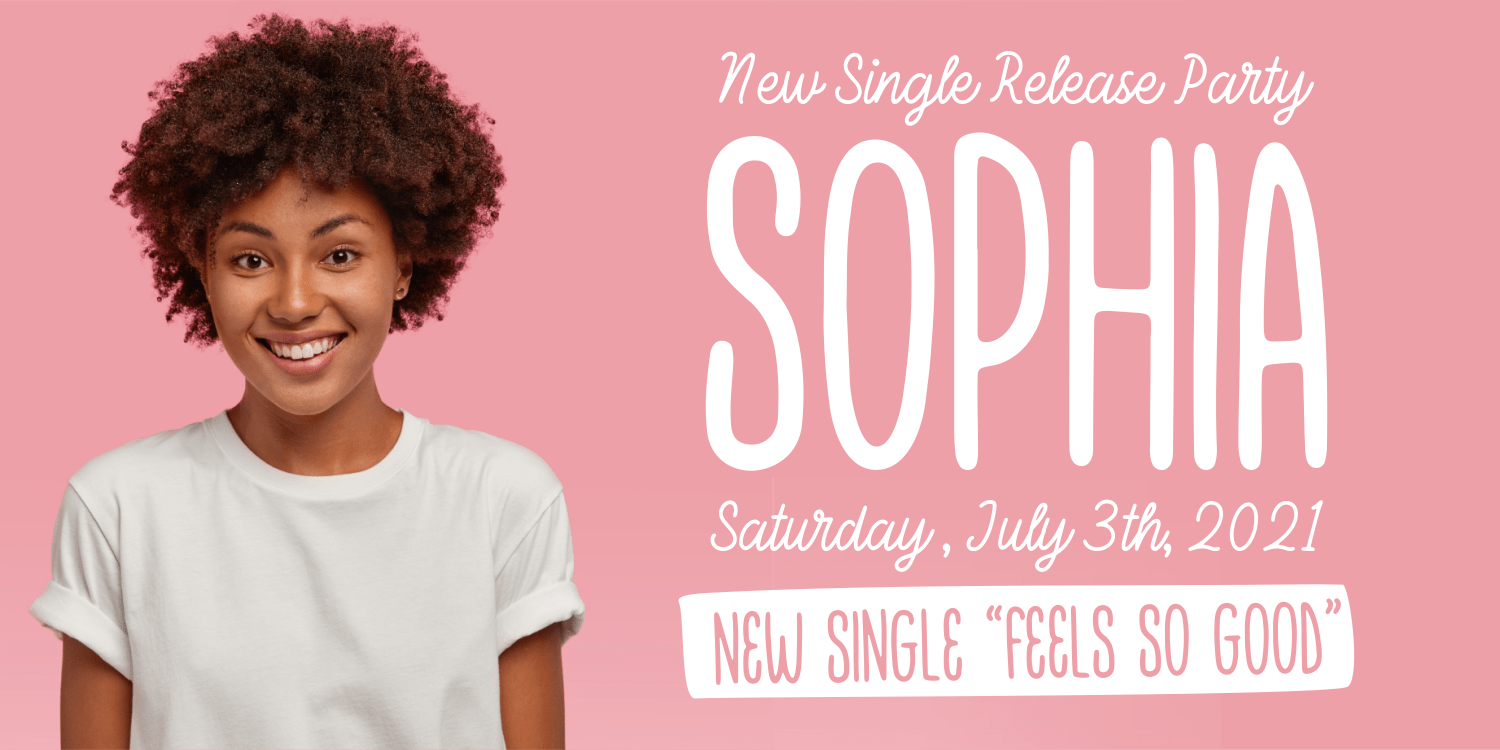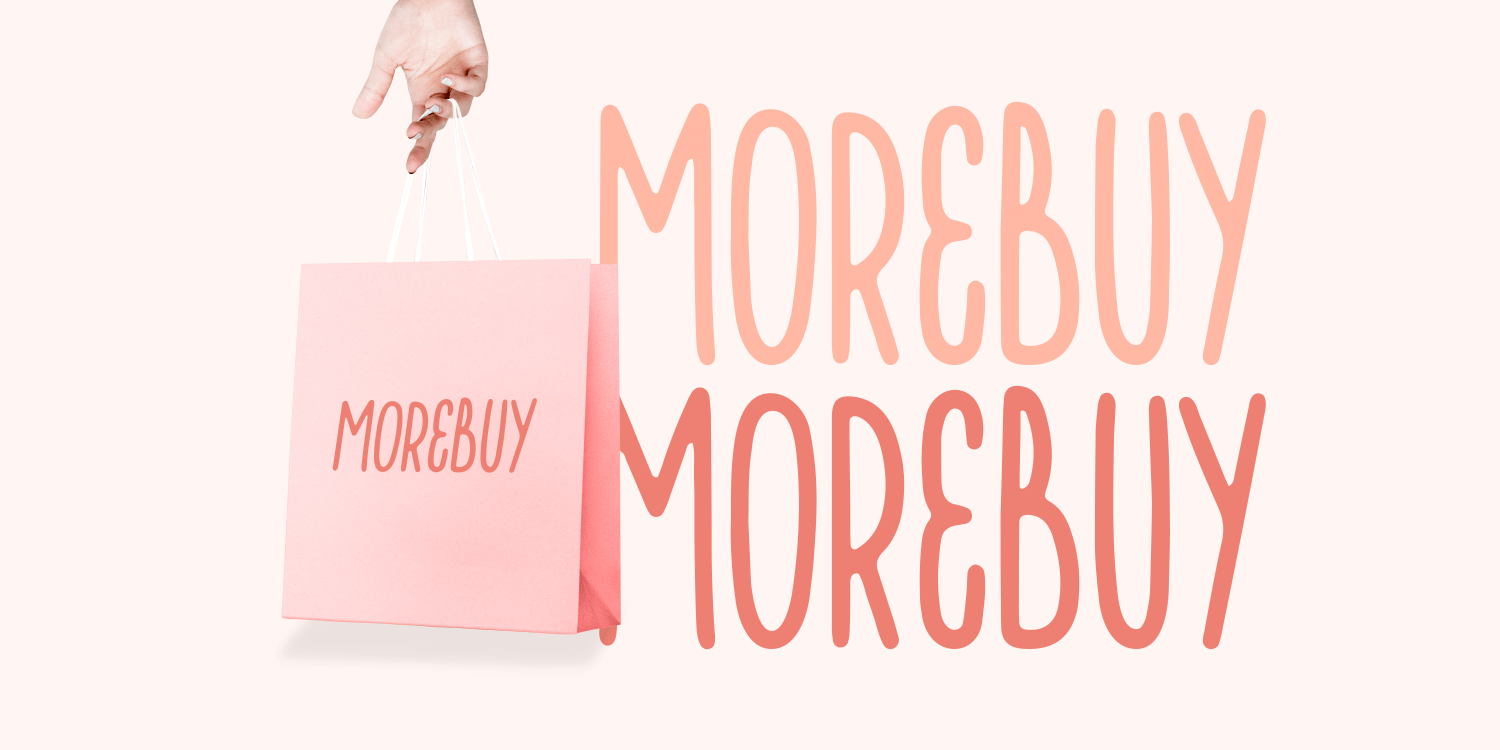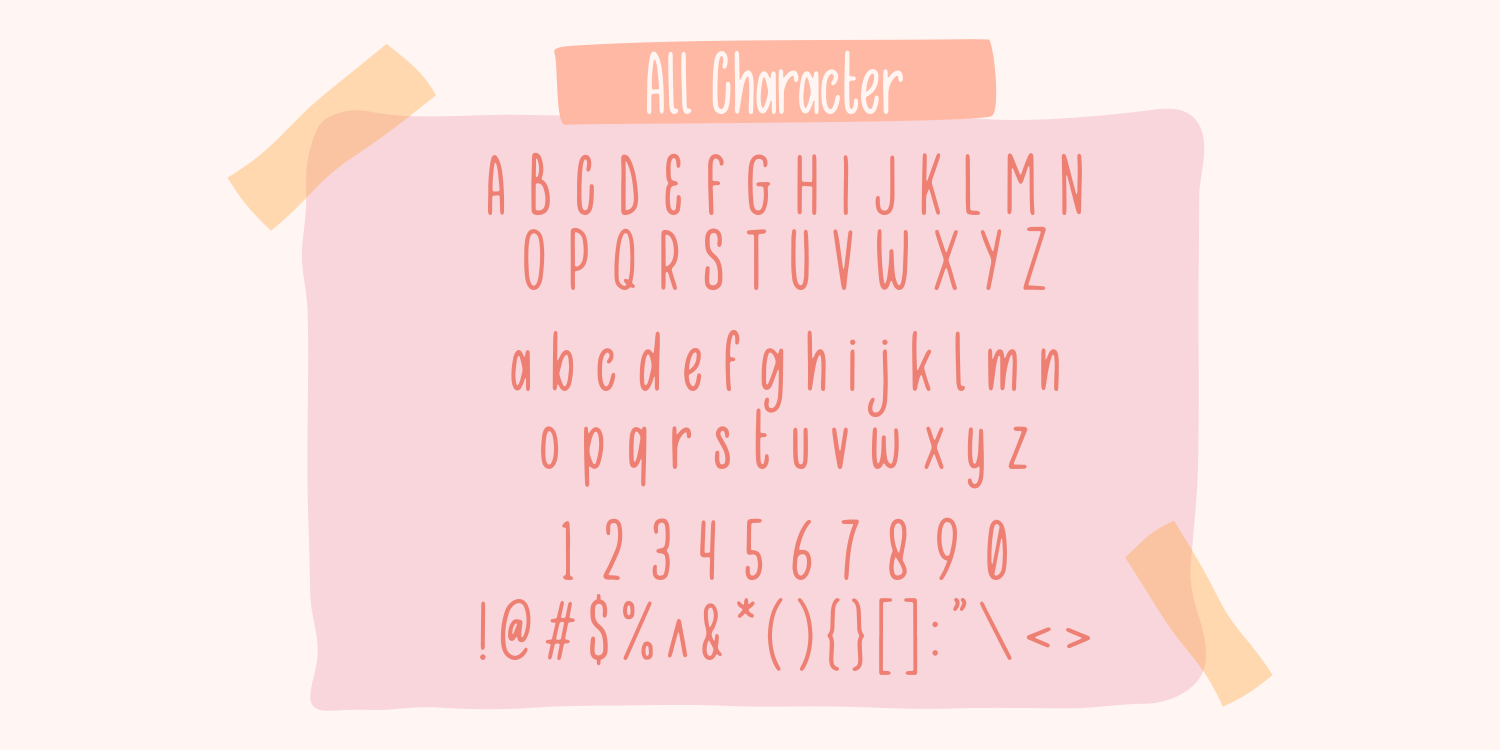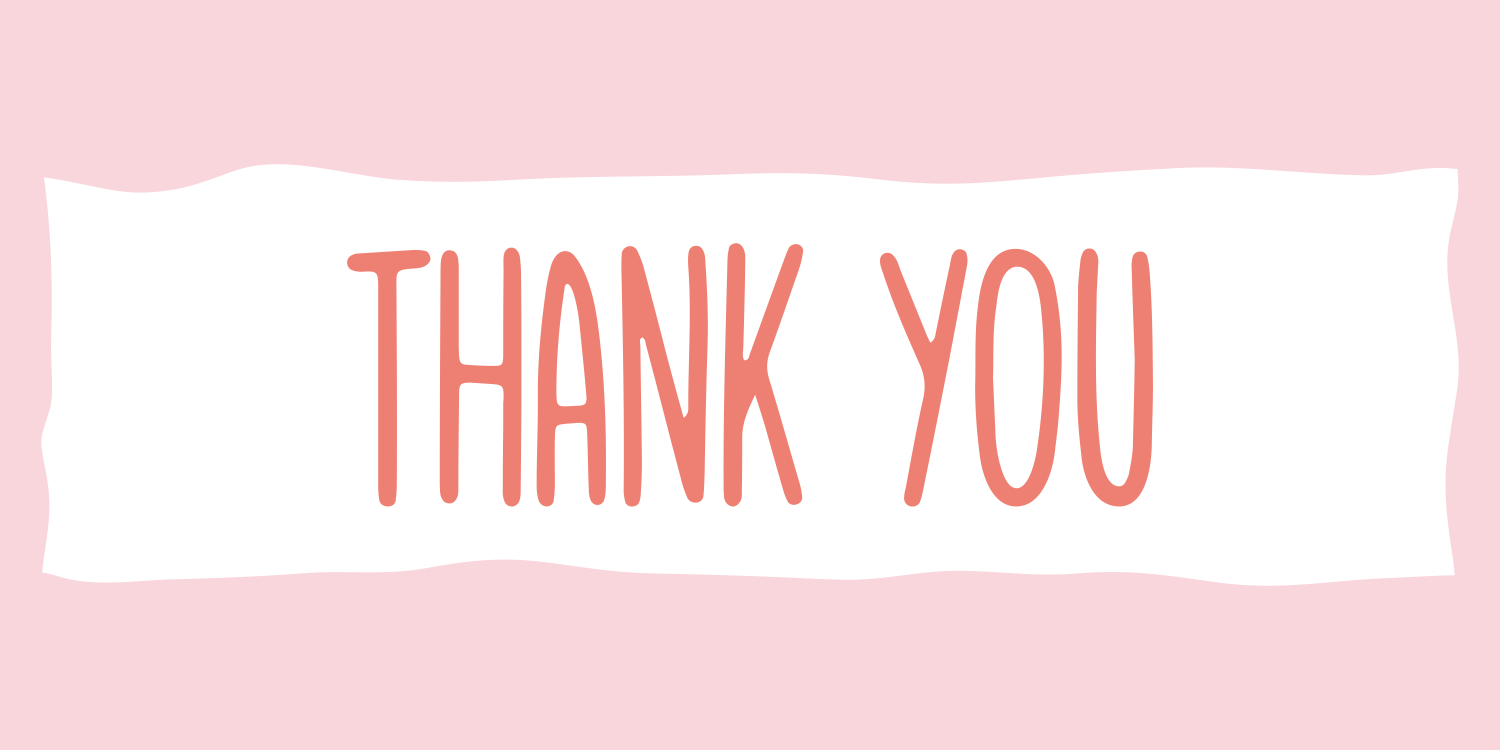
Monolane Display Font is a cute and simple lettered handwritten font that can be used for all chalkboard quotes or teaching material! Its authentic look will add a personal and realistic feel to your designs.